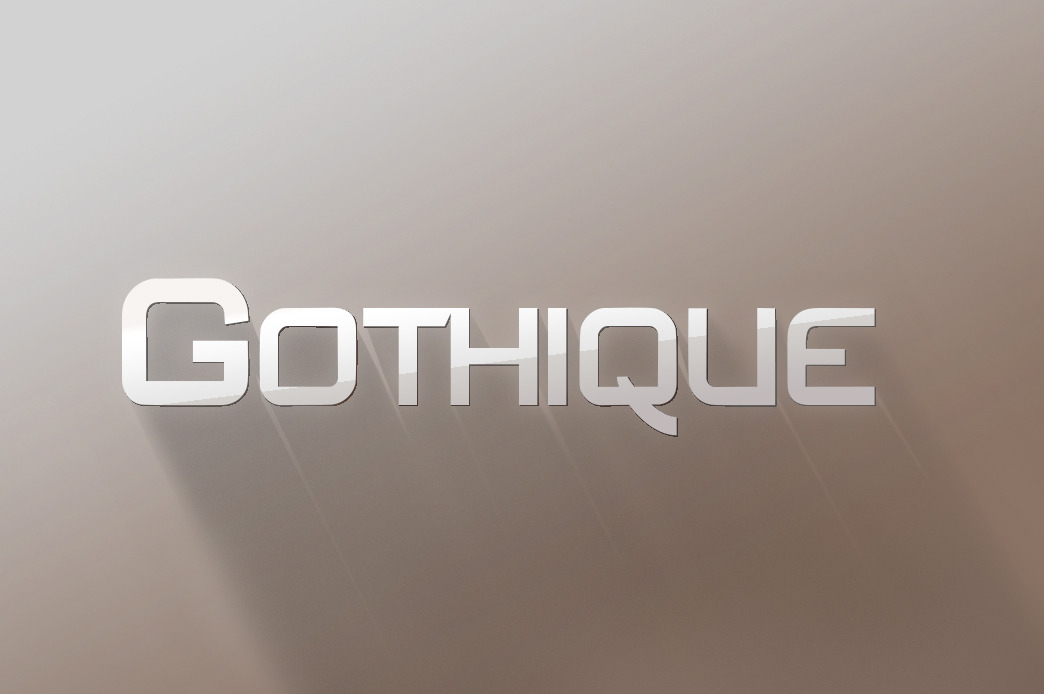
Gothique Modern Sans Serif Font
A typeface in Regular & Bold, plus Extended in Regular, Regular Italic, Bold & Bold Italic, Gothique was inspired by popular modern Gothic fonts. Gothique features geometric lines & some arches (as in Gothic cathedrals :)) & rounded corners of 2 varying radii. It is sleek, modern & simple, possibly even 'tech'. There are some ligatures (as shown in the word "FOURTH", above), characters with diacritical marks, & alternate characters accessible via the "Stylistic Alternates" & "Swash" buttons in Photoshop's Character panel, or any other OpenType-friendly software. Please see the examples, thanks :)